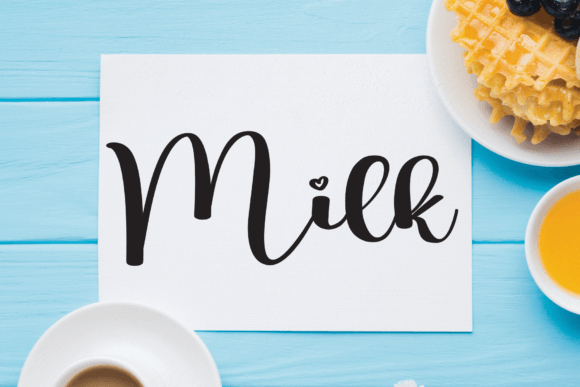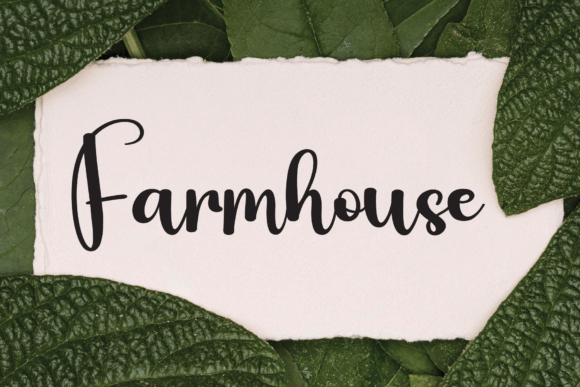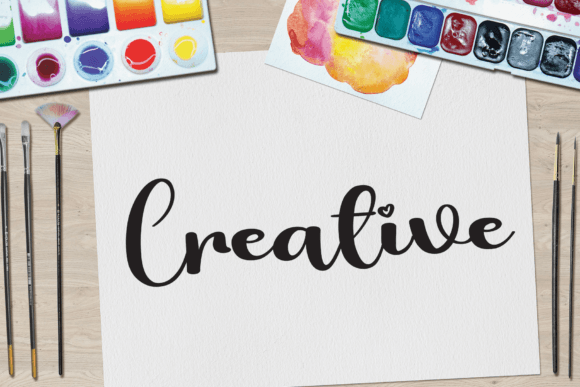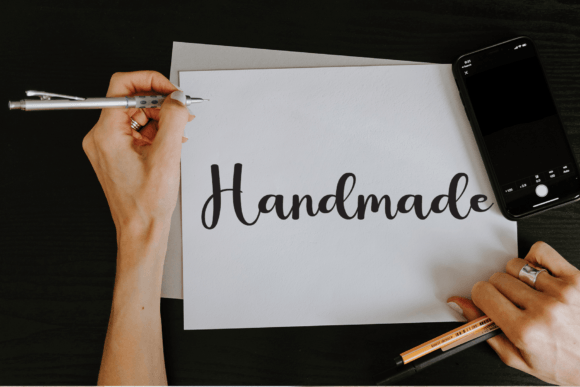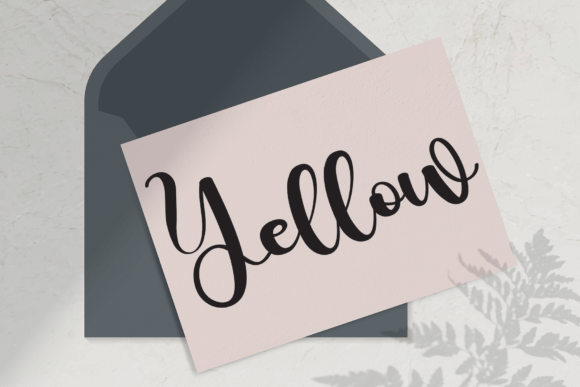
Yellow Font
About Yellow Font
Introducing “Yellow,” a font that encapsulates cleanliness, relaxation, and friendliness with its handwritten charm. This versatile font is well-suited for a wide variety of designs, thanks to its neat and simple style. It holds the potential to become your favorite go-to font, ready to enhance your projects for any occasion.
The clean and relaxed demeanor of “Yellow” instills a sense of simplicity and clarity into your designs. Its friendly handwritten style adds a personal touch, making it adaptable for various applications. Whether you’re working on invitations, thank-you cards, posters, or any creative project, this font seamlessly fits your design needs.
The simplicity of “Yellow” doesn’t compromise its visual appeal; instead, it elevates it. The font’s straightforward and clean lines contribute to its versatility, allowing it to shine in both casual and formal contexts. It becomes a reliable choice for conveying a message with clarity and a touch of warmth.
Consider “Yellow” as a design tool that effortlessly complements your creative vision. Its relaxed and friendly demeanor ensures that your projects exude approachability, making it suitable for a variety of occasions. From everyday designs to special events, this font has the potential to make a lasting impression.
Embrace the ease and charm of “Yellow” as you embark on your creative endeavors. Let its clean, relaxed, and friendly handwritten style guide you in creating designs that resonate with simplicity and warmth. Whatever the occasion, this font stands ready to be the perfect choice for your projects.